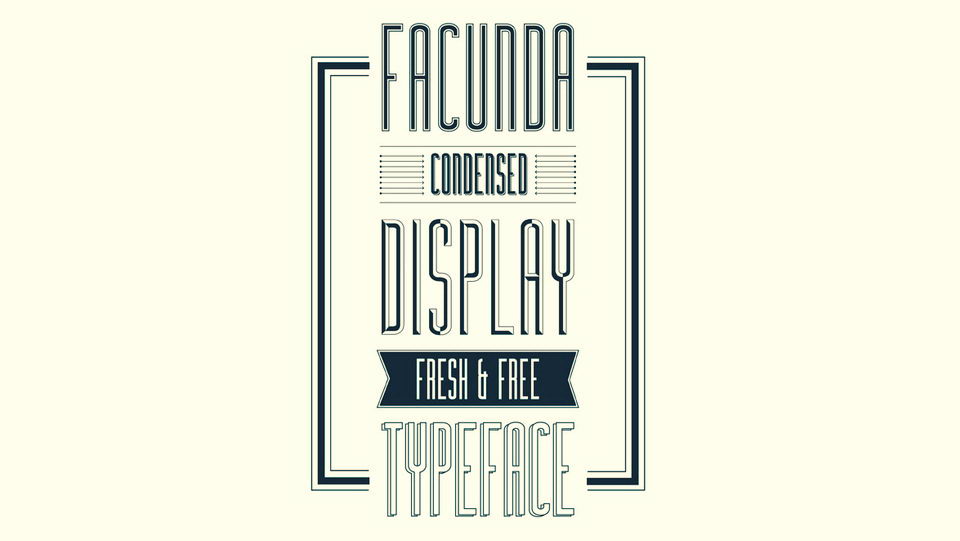
Download Facunda typeface, a condensed display sans serif font family available in five different styles. Facunda font is perfect for headlines, posters, short statements, labels, badges, magazines, social media and more.
Designer: Nomo Studio